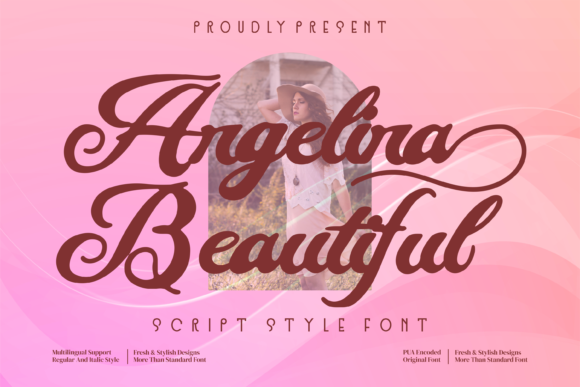
Unleash Your Creativity with the Angelina Beautiful Font
Have you ever been browsing through a beautiful typography layout on Instagram and thought to yourself, ‘I wish I could create something that stunning’? You’re not alone. Many designers and creatives have been searching for the perfect font to bring their ideas to life. That’s where the comes in – a magical script font carefully crafted with a touch of elegance.
Whether you’re a seasoned designer or just starting out, this font is sure to be a valuable addition to your toolkit. With its versatility and sophistication, the Angelina Beautiful Font is perfect for creating stunning calligraphy scripts for DIY projects, branding, or simply adding a touch of magic to your social media posts. Whether you’re a professional or a hobbyist, this font will help you turn your creative ideas into true works of art.
Angelina Beautiful Font Key Features
- Font Family: Angelina Beautiful is a beautiful, elegant script font.
- Unique Characteristics: Angelina Beautiful features beautiful, flowing connections between letters, making it perfect for creative and elegant designs.
Angelina Beautiful Font Review
Overall, I have mixed feelings about the “Angelina Beautiful Font”. Let’s dive into what works well and what doesn’t.
- Unique and elegant design: The font has a beautiful, cursive feel that makes it perfect for wedding invitations, birthday cards, or any other romantic occasion.
- Highly legible: Despite its elegant design, the font is still easy to read, even in smaller sizes.
- Great for digital use: The font looks great on both screen and paper, making it a versatile choice for various projects.
- Not ideal for bold headings: The font’s elegant design can make it difficult to use for bold headings, as it may get lost in the background.
- Not suitable for very long texts: The font’s cursive design can make it difficult to read large blocks of text, as it can be hard to follow.
- Requires careful spacing: To avoid clutter, you’ll need to carefully adjust the spacing between lines and words to get the best results.
Overall, the “Angelina Beautiful Font” is a beautiful choice for projects that require a touch of elegance. However, it’s not the best choice for every situation, and you may need to adjust your design accordingly.
Tips for Getting the Most Out of Angelina Beautiful Font
For optimal results, use Angelina Beautiful Font in combination with high-quality images and carefully selected colors.
Experiment with different font sizes and styles to create visual interest and emphasize key messages.
Angelina Beautiful Font is ideal for:
High-end branding and marketing materials
Special occasion graphics and social media posts